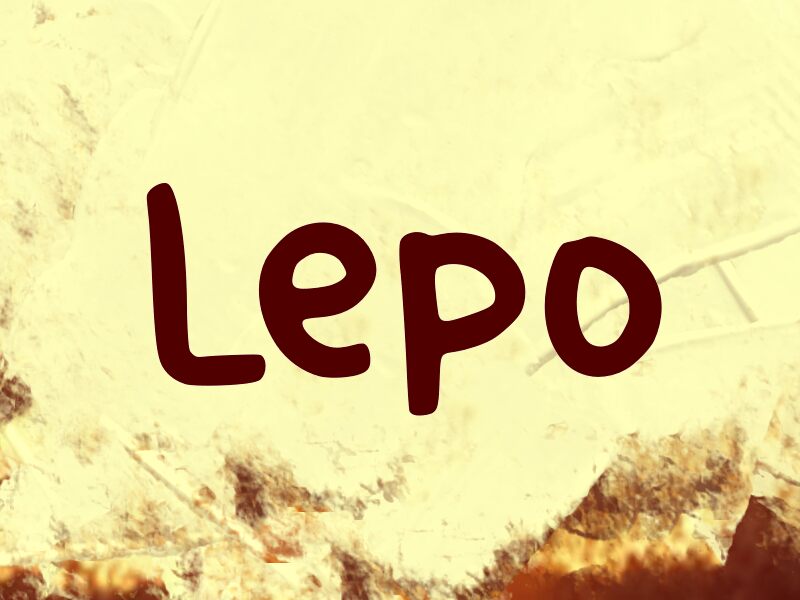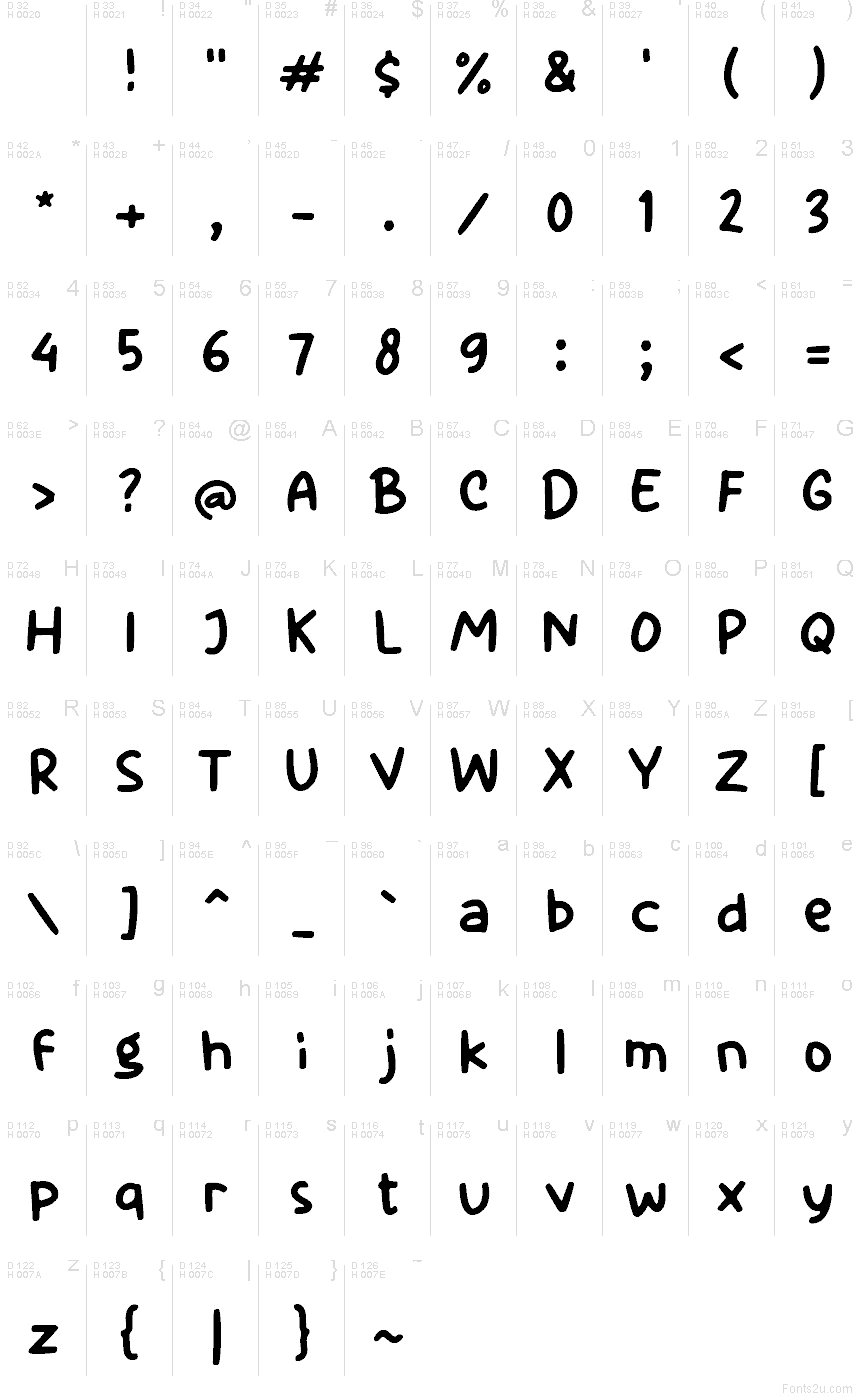
Lepo
Lepo font by wep is a free cartoon display typeface with chunky, ink-bloom shapes that feel like they’ve been drawn straight from a marker pen. Its rounded, slightly wobbly letters give off a friendly, bouncy energy while still staying clear and readable, even at smaller headline sizes. The thick strokes and soft corners make text feel warm and approachable, like the title card of a favorite Saturday morning show.
Using Lepo, this free font shines on kids’ book covers, playful logos, game titles, classroom posters, party invitations, and YouTube thumbnails. The casual rhythm and generous forms grab attention without feeling loud or shouty, so it’s great for family-oriented brands and educational projects. Pair Lepo with a clean geometric sans for small supporting text, and keep Lepo large and bold to let its cartoon charm really take over.